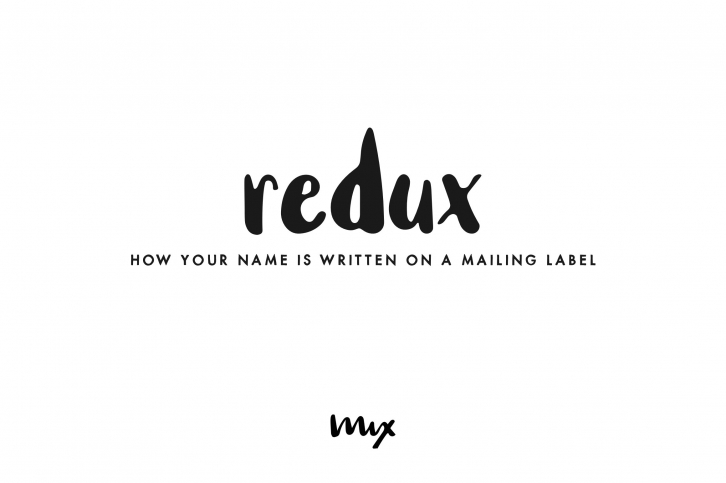
Mix Redux is how your name is written on a mailing label, perfect for handmade and DIY themed projects. This font was digitized from glyphs handwritten with a Sharpie brush pen.
Now updated to include most international characters!